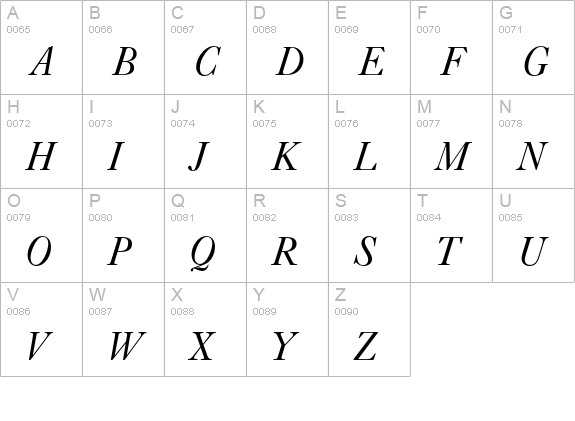
Caslon 540 Italic is a distinctive, italic variant in the Caslon typeface family \xE2\x80\x94 well suited to design and typography projects.
Caslon 540 Italic is a classic and elegant font that exudes sophistication and style. With its gracefully slanted design and intricate detail, this typeface adds a touch of refinement to any project. The italicized letterforms of Caslon 540 Italic convey a sense of movement and fluidity, making it perfect for adding emphasis or flair to your text. What sets Caslon 540 Italic apart is not only its timeless appeal but also the fact that it is available for free download at FontsMarket.com. This means you can easily access and use this exquisite font for personal or commercial projects without any cost. Whether you're designing invitations, posters, or branding materials, Caslon 540 Italic is a versatile choice that will elevate your work with its sophistication and charm. Download it today and add a touch of classic beauty to your designs!